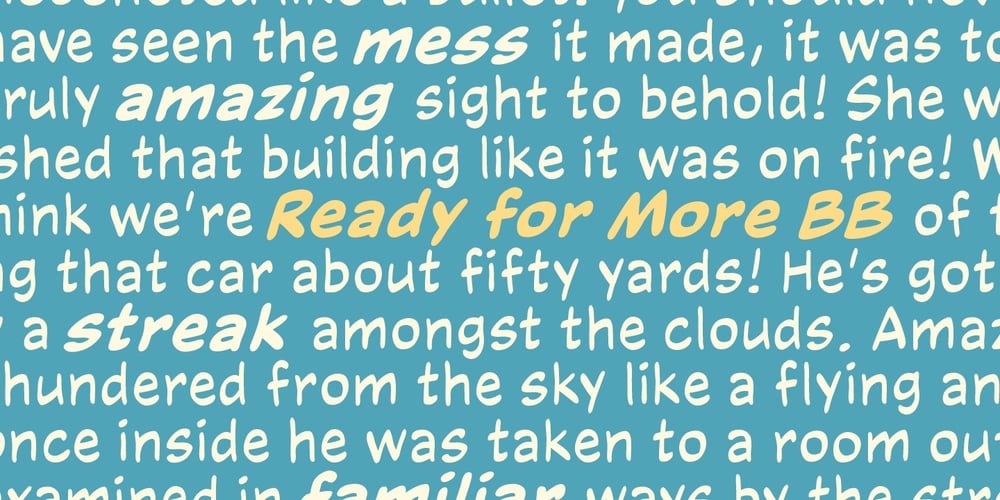
Ready for More BB Font Family was designed by Nate Piekos and published by Blambot. Ready for More BB contains 4 styles and family package options. The long-awaited sentence-case version of Blambot’s Ready for Anything comic book dialogue font has arrived! Are you…Ready for More? This typeface includes double-letter autoligatures, contextual alternate barred-I correction, and tons of diacritical glyphs.